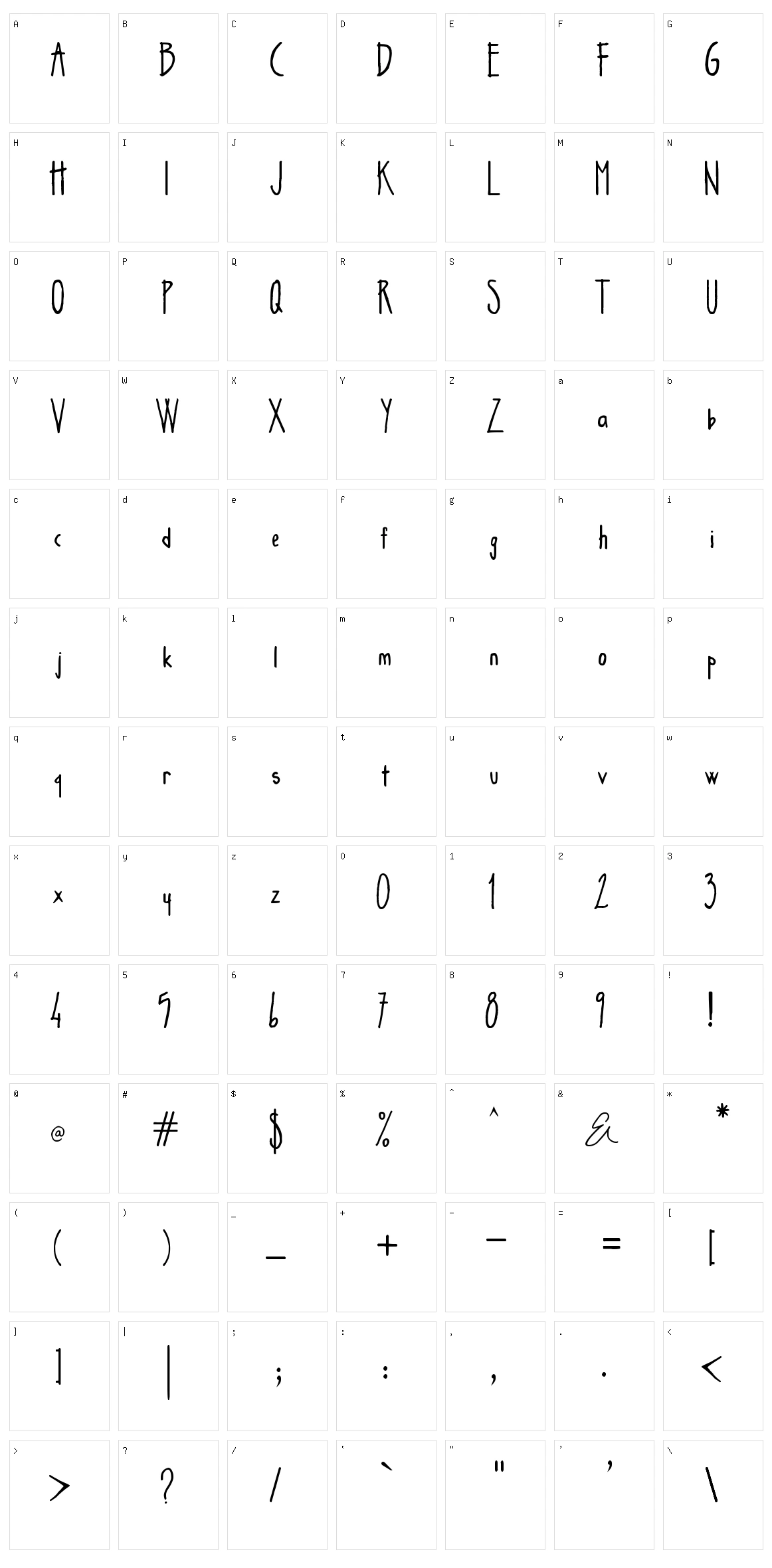
The free font Zsar Chankian is carefully designed by Zsar Chankian, showcasing a thoughtful balance of creativity and usability and falls under the Script font style. When you download the ZIP file, it contains only 13.47 KB of font files, making it lightweight and quick to download. Please review the license details below to understand permitted usage and distribution rights. If license information is not available, we recommend using this font for personal projects only or contacting the author directly for commercial usage permissions.